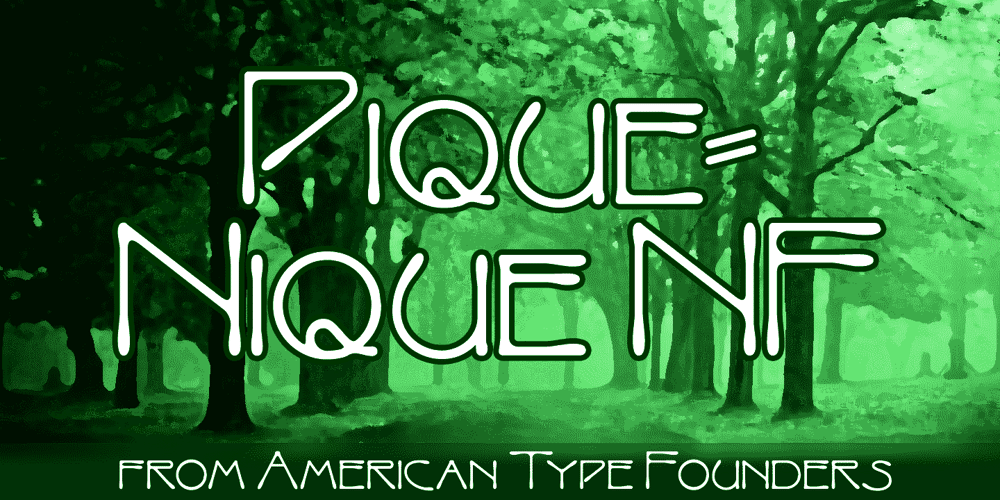
Pique-Nique NF Font Family was designed by published by Nick’s Fonts. Pique-Nique NF contains 1 styles and family package options. The 1895 specimen book from American Type Founders included the pattern for this face, originally called Outing—Art Nouveau with a laid-back vibe. Both versions of this font support the Latin 1262, Central European 1250, Turkish 1254 and Baltic 1257 codepages.